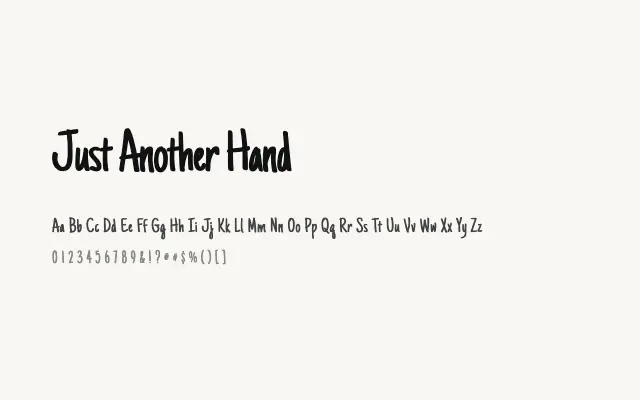
Just Another Hand
A breezy, unpretentious handwritten script that trades polish for genuine informal charm.
Just Another Hand suits casual signage, social media graphics, and personal project branding where an authentic handmade feel is more important than elegance. Its single weight and limited Latin coverage make it a one-role typeface, best deployed at display sizes for short phrases or labels. It lacks the refinement for editorial or commercial brand use.
Just Another Hand is a loose, informal all-caps-style handwritten script with an unaffected, sketchy quality. Its simplicity reads as spontaneous rather than designed.